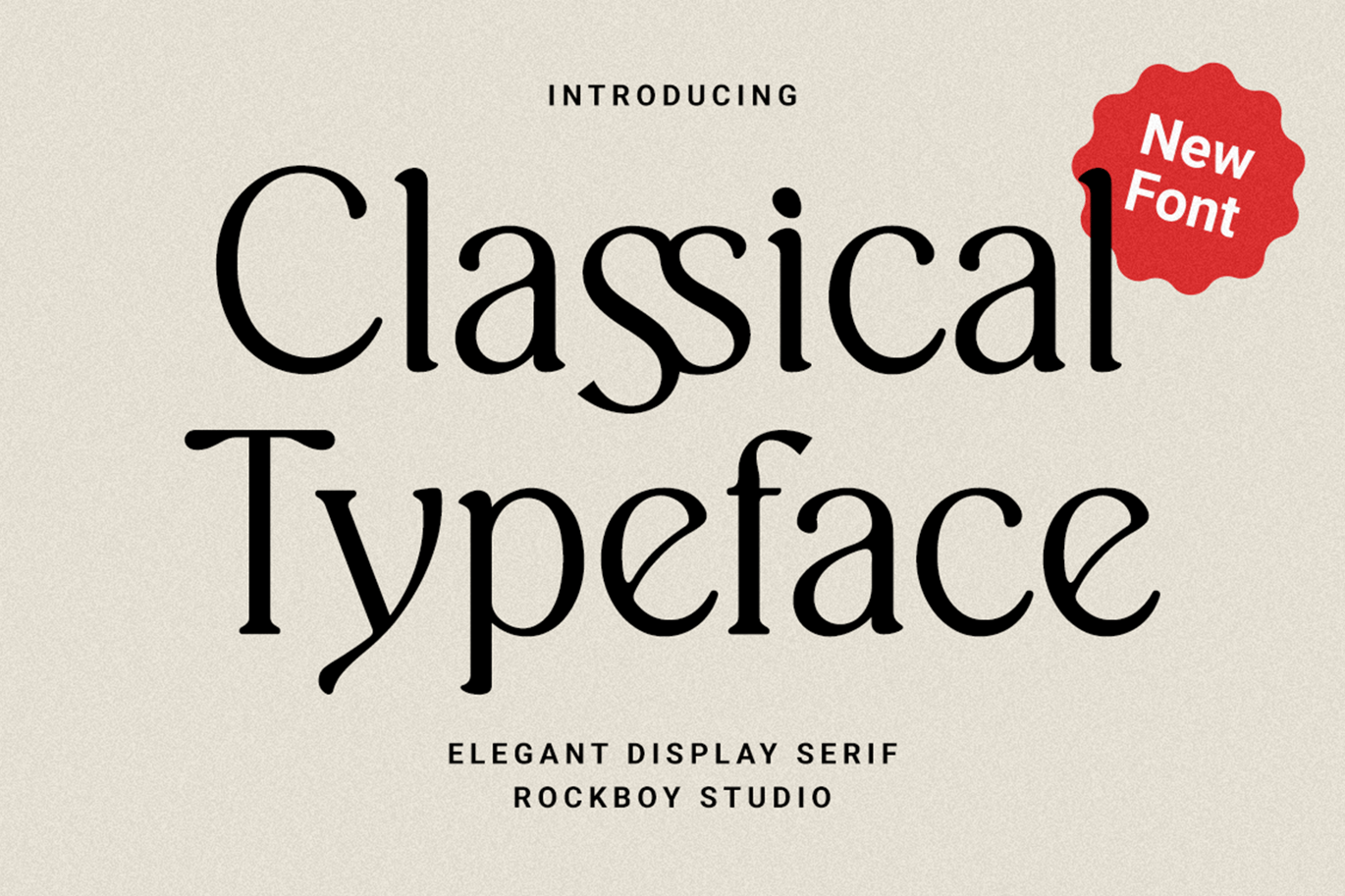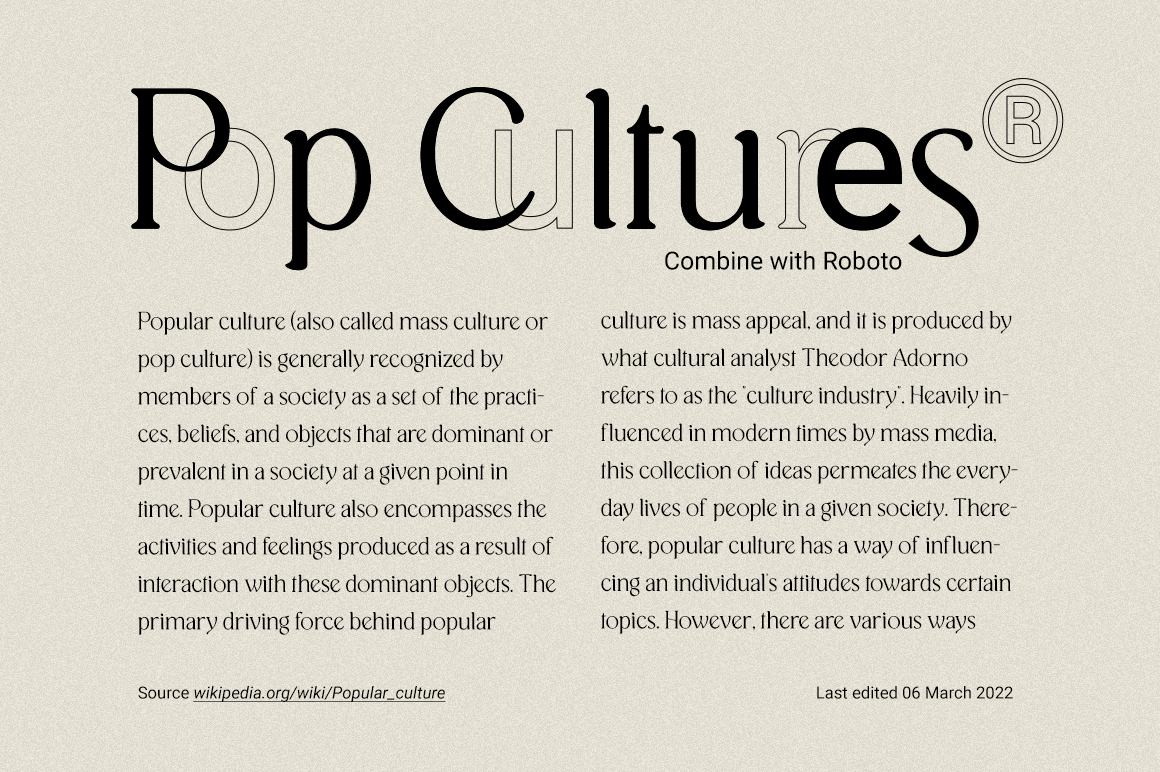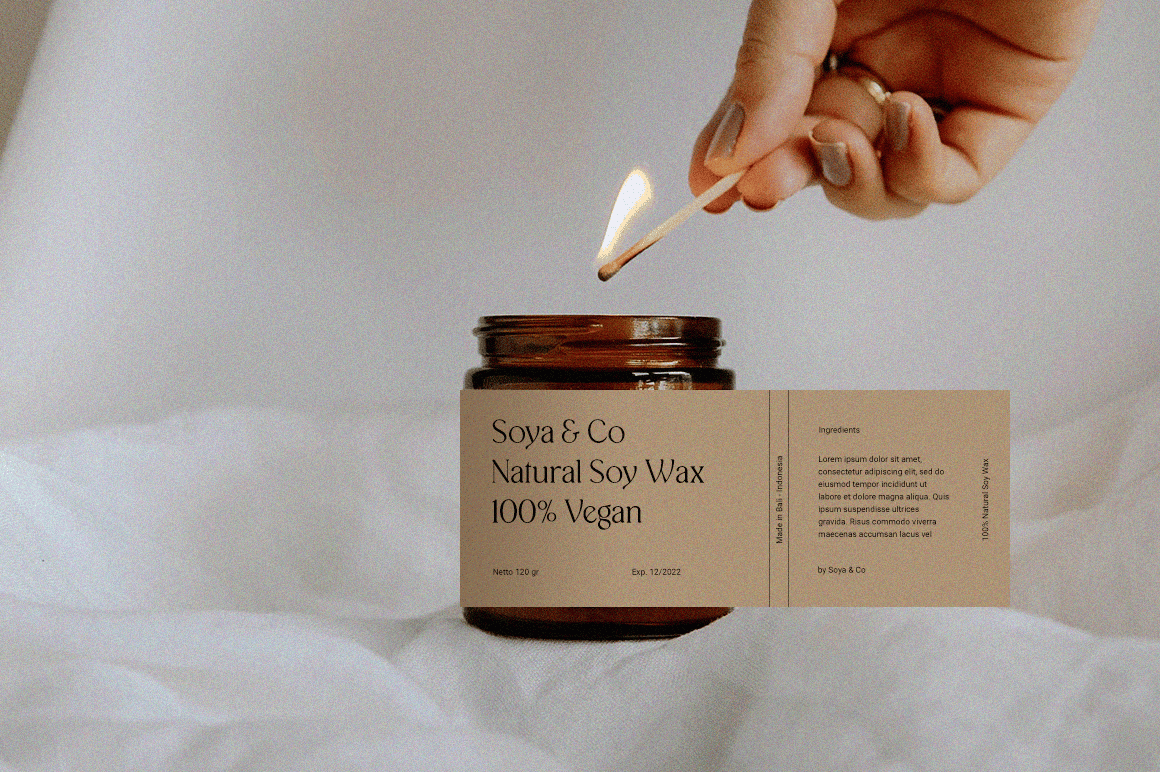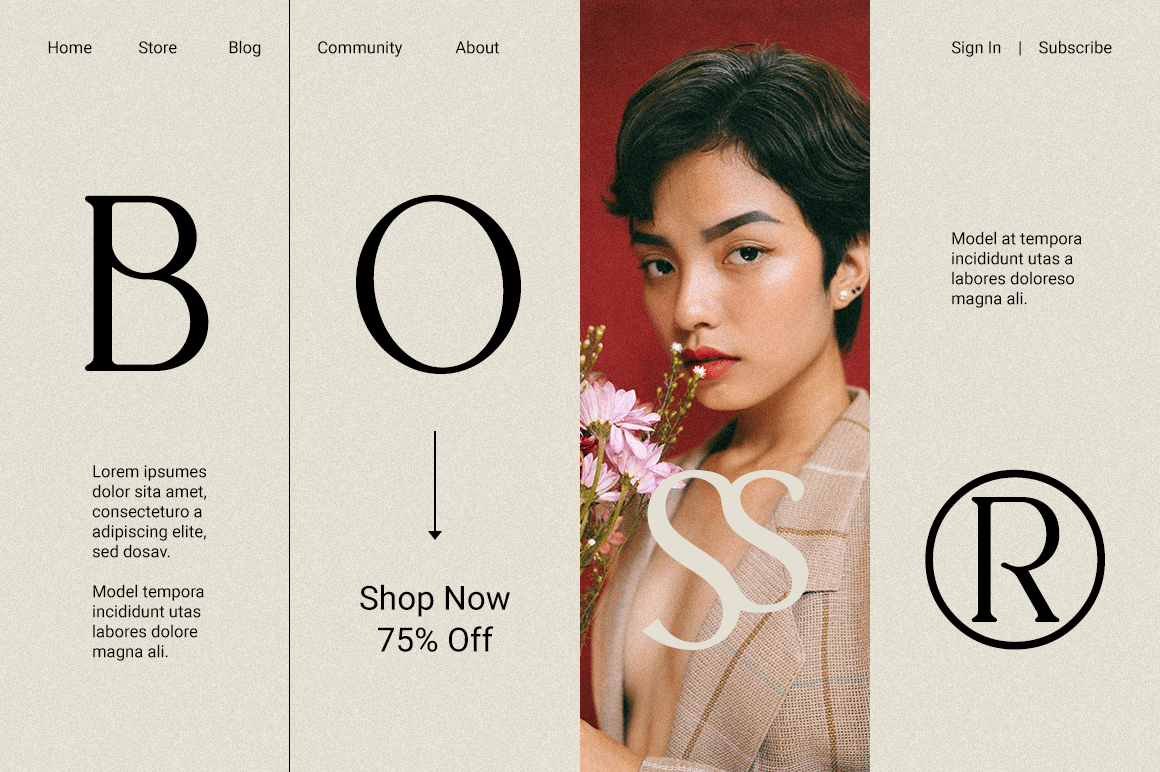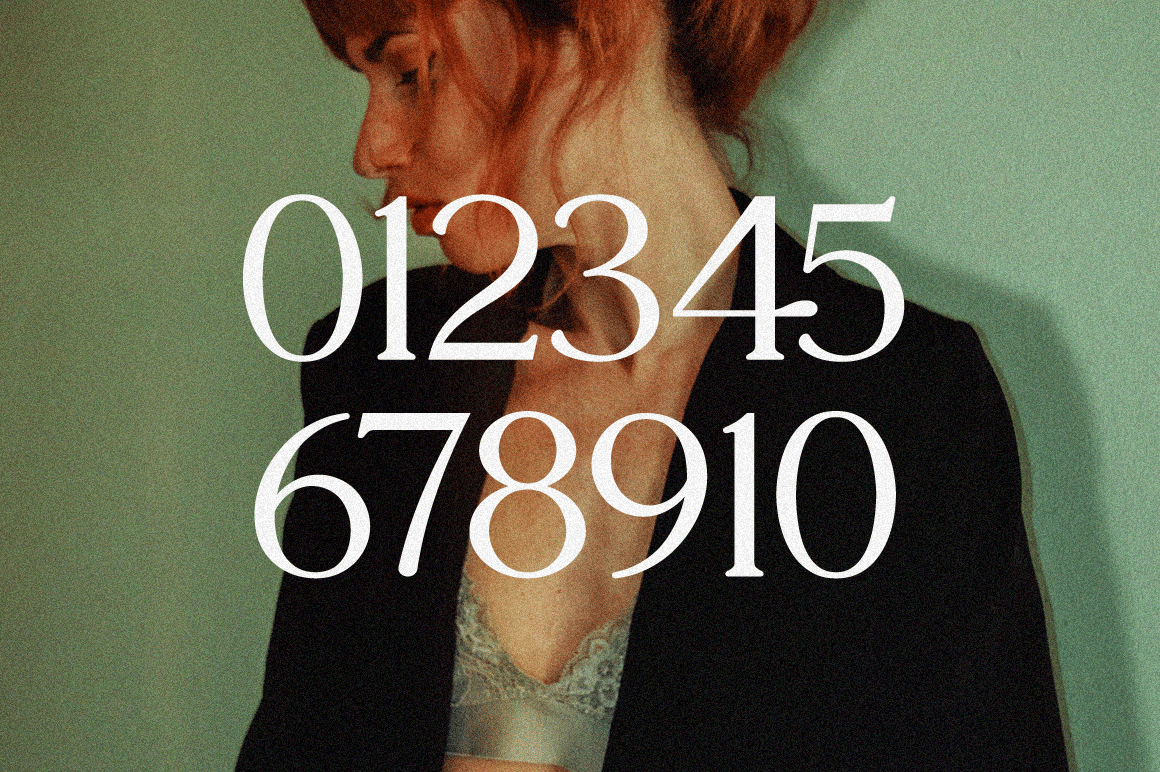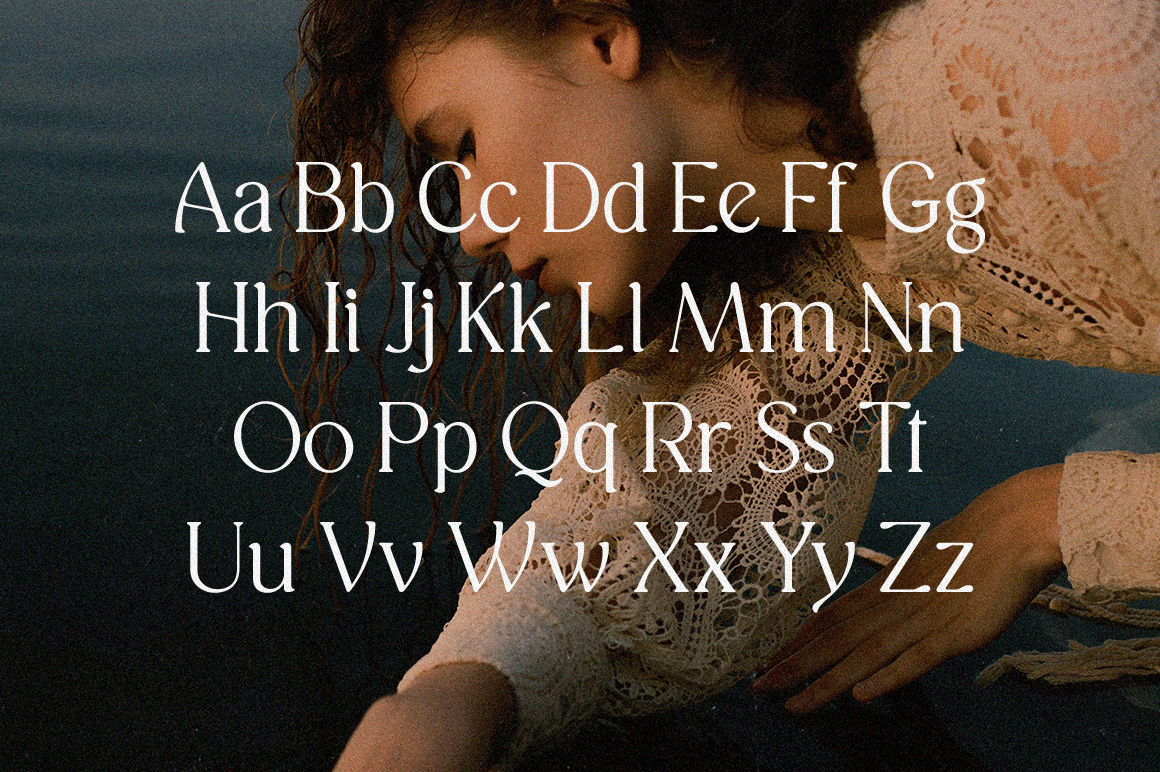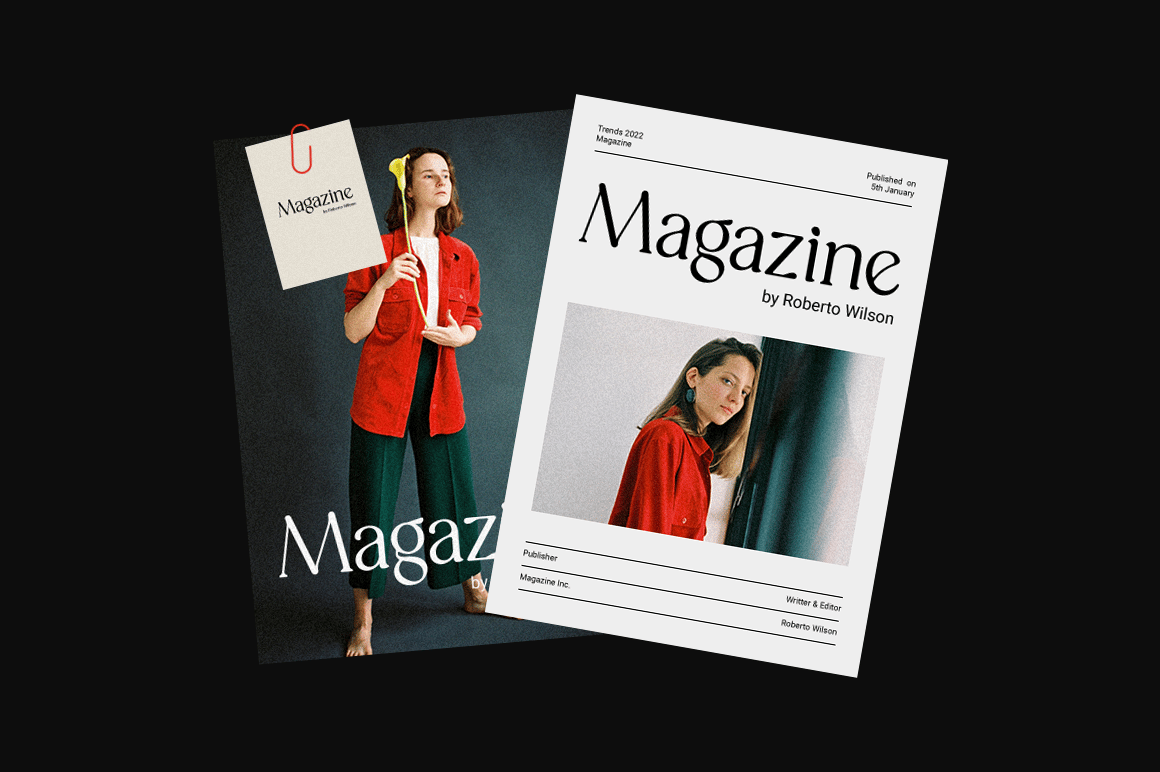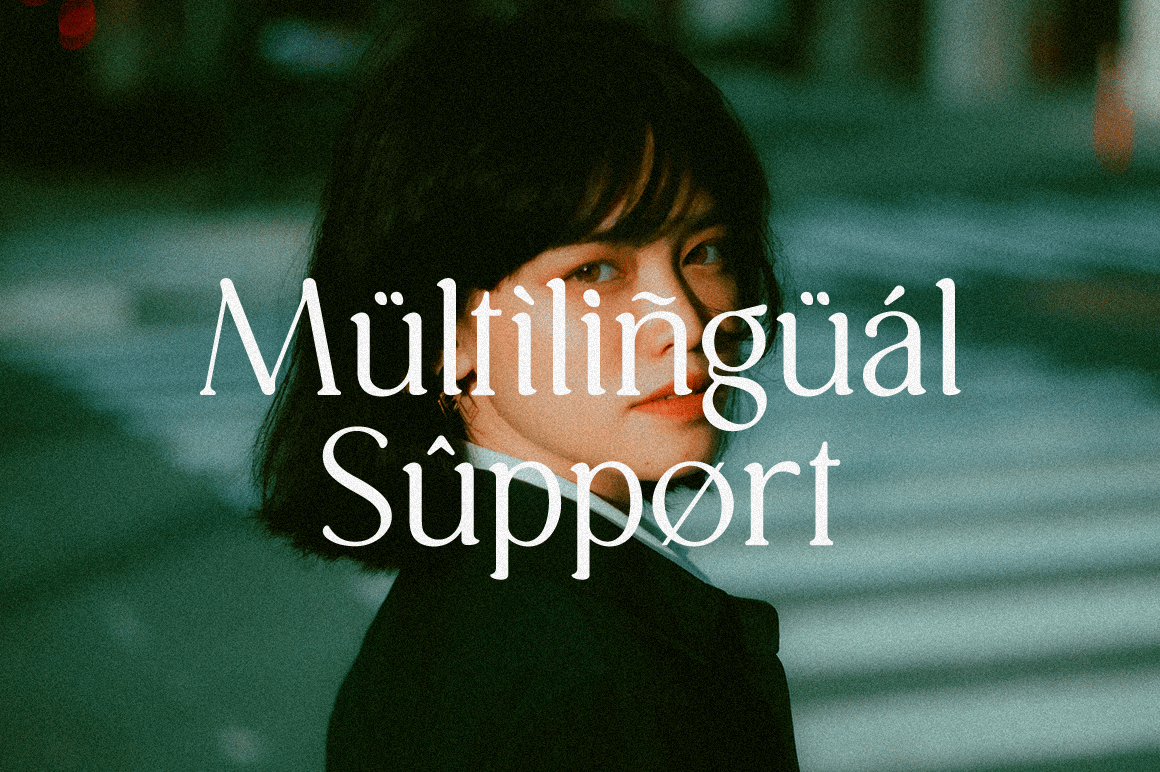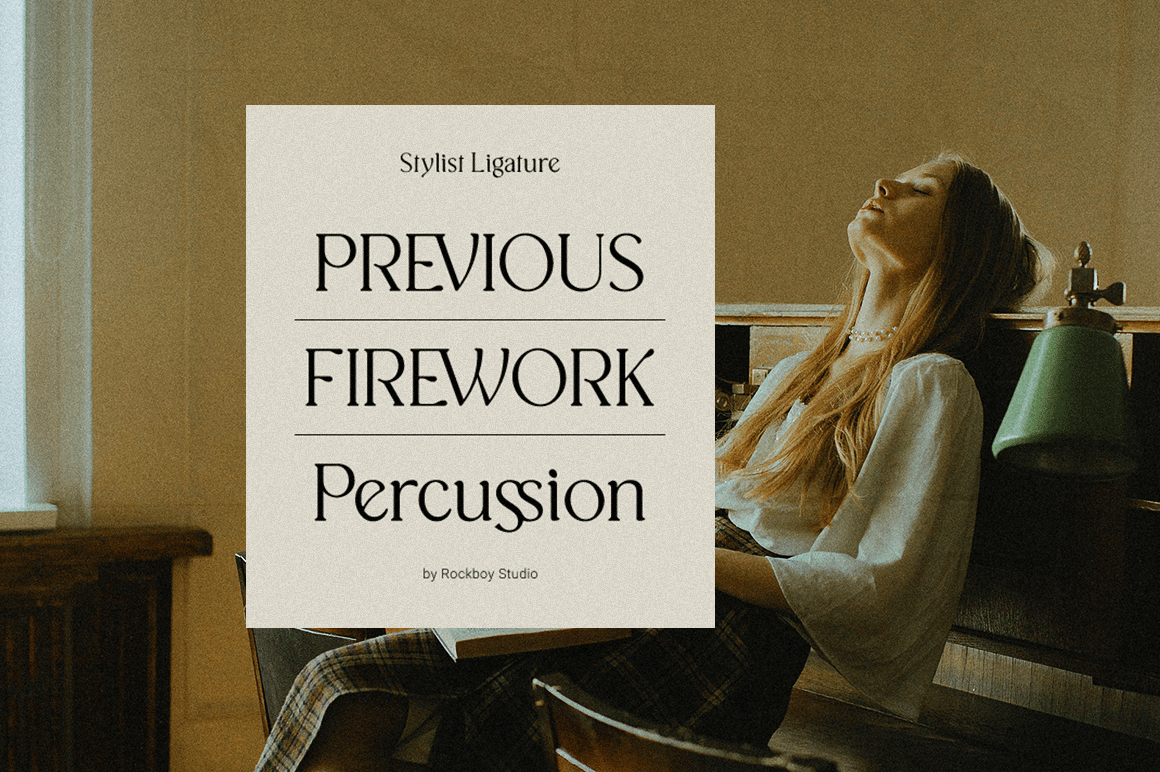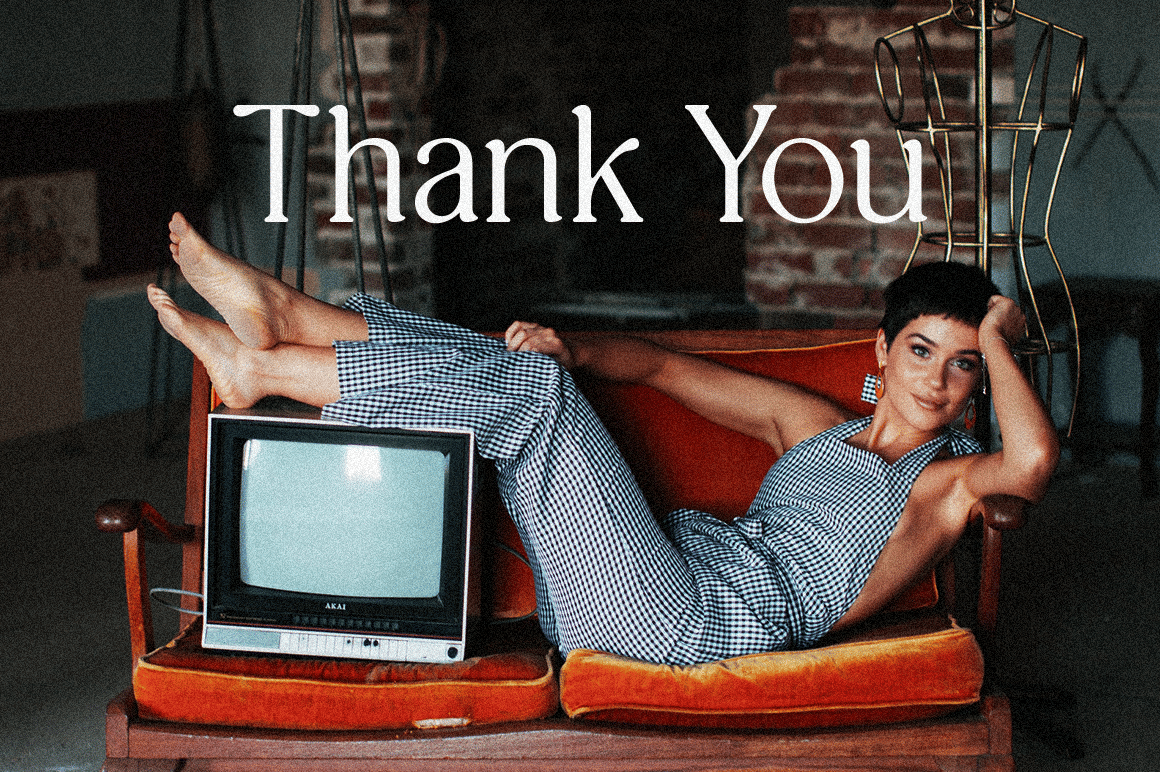
Classical Typeface
Classical Typeface is classic serif font. This font is perfect for all sorts of projects such as logo design, branding, web design, packaging, social media, and so much more!